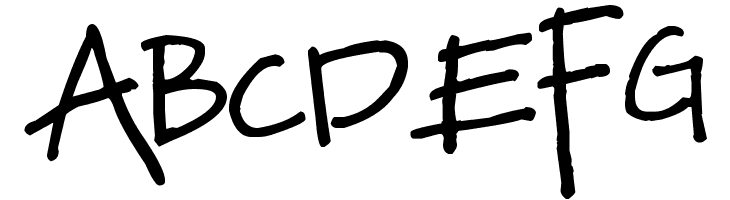
• DJB SLOPPYJO
A bold, playful handwritten font with dynamic and irregular strokes.
• DJB Smarty Pants
A playful handwritten font with a casual and energetic style.
• DJB SNARKY BESS
A playful handwritten font with quirky, uneven strokes and a casual style.
• DJB SNARKY BESS Straight
• DJB Speak Softly Bold
• DJB Speak the Truth Bold
A bold, modern sans-serif font with clean lines and high legibility.
• DJB SQUIRLY Q
A whimsical, curly font with playful loops and flourishes.
• DJB Sunflowers for Vincent
A playful, rounded font with smooth curves and uniform thickness.
• DJB SWIRL ME AROUND
A decorative script font with swirling, whimsical embellishments.
• DJB The Font that is Liz
A playful, casual handwritten font with a natural, creative flair.